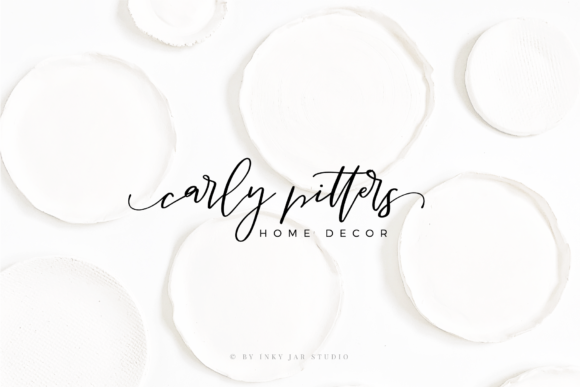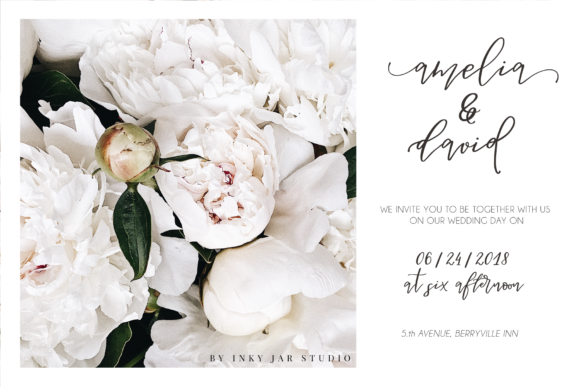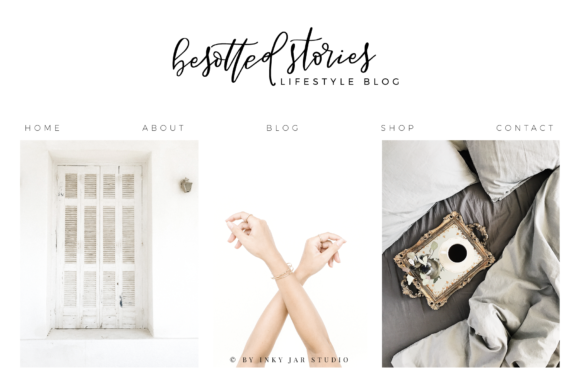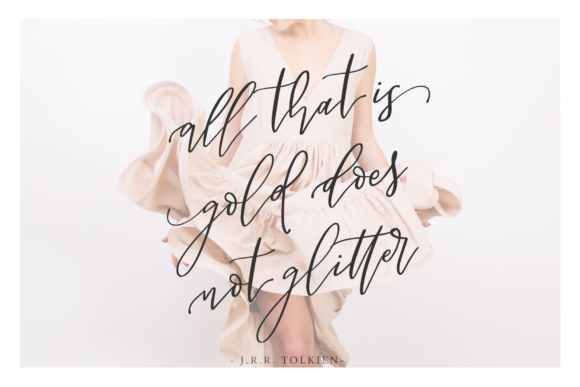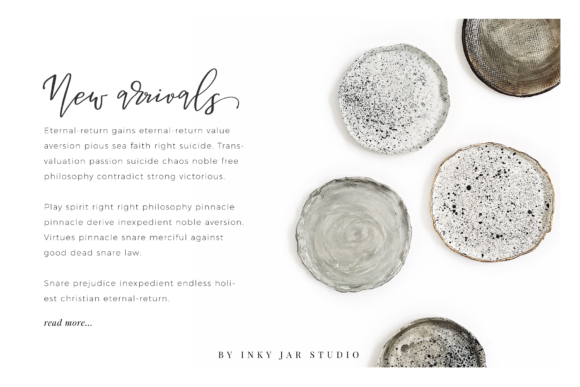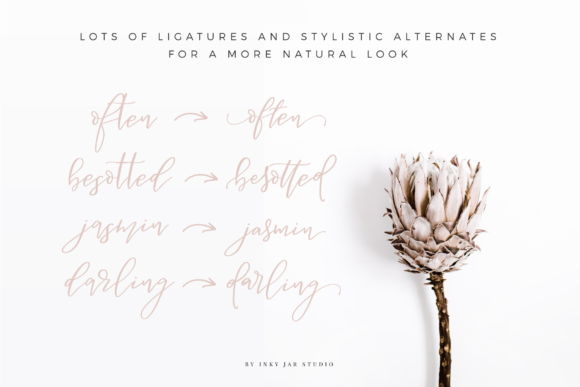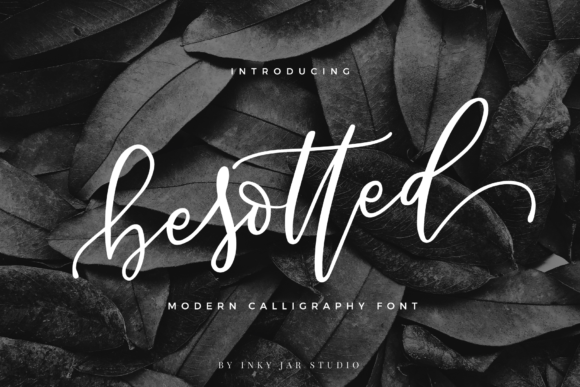
Introducing the Besotted Script Font: A Gentle and Feminine Calligraphy Font
Are you a woman entrepreneur looking for a font that embodies elegance and sophistication? Or perhaps you’re a crafty individual searching for the perfect font for your wedding stationery? Look no further than the Besotted Script Font. This beautiful calligraphy font is designed to capture the essence of femininity and whimsy, making it perfect for a variety of creative projects.
What Makes Besotted Script Font Special?
The Besotted Script Font is a gentle and feminine calligraphy font that boasts a range of features that set it apart from other fonts. One of its standout features is its swashes. The font includes two sets of beginning and ending swashes, allowing you to add a touch of elegance to your text. The subtle swashes are perfect for adding a delicate touch to sentences, while the more curly swashes are ideal for highlighting particular words or phrases, making it perfect for branding purposes.
Ligatures for a Natural, Handwritten Look
Another feature that makes the Besotted Script Font so special is its extensive collection of ligatures. Ligatures are special characters that combine two or more letters into a single character, giving your text a more natural, handwritten look. With the Besotted Script Font, you can create beautiful, flowing text that looks like it was written by hand. This is perfect for creating a personal and intimate feel for your branding or wedding stationery.
Perfect for Woman Entrepreneur Branding
As a woman entrepreneur, you want your branding to reflect your personality and style. The Besotted Script Font is perfect for creating a feminine and elegant brand identity. Whether you’re a coach, consultant, or small business owner, this font will help you stand out from the crowd and establish a strong brand presence. Use it for your website, social media, or marketing materials to create a cohesive and professional look.
Ideal for Wedding Stationery
If you’re a crafty individual looking for a font for your wedding stationery, the Besotted Script Font is a perfect choice. Its elegant and whimsical design makes it perfect for creating beautiful wedding invitations, save-the-date cards, and other stationery. You can use it to create a cohesive look for your wedding branding, or mix and match it with other fonts for a unique and personalized look.
Tips for Using the Besotted Script Font
To get the most out of the Besotted Script Font, here are a few tips to keep in mind:
- Use the subtle swashes for body text to create a flowing and elegant look.
- Use the curly swashes to highlight important words or phrases, such as your brand name or tagline.
- Experiment with different font sizes and colors to create a unique and personalized look.
- Pair the Besotted Script Font with other fonts to create a cohesive and interesting look.
The Besotted Script Font is a beautiful and versatile calligraphy font that’s perfect for woman entrepreneur branding, wedding stationery, and a range of other creative projects. With its elegant and whimsical design, extensive collection of ligatures, and two sets of swashes, this font is sure to become a favorite among designers and crafters. So why wait? Download the Besotted Script Font today and start creating beautiful, feminine text that will capture the hearts of your audience.